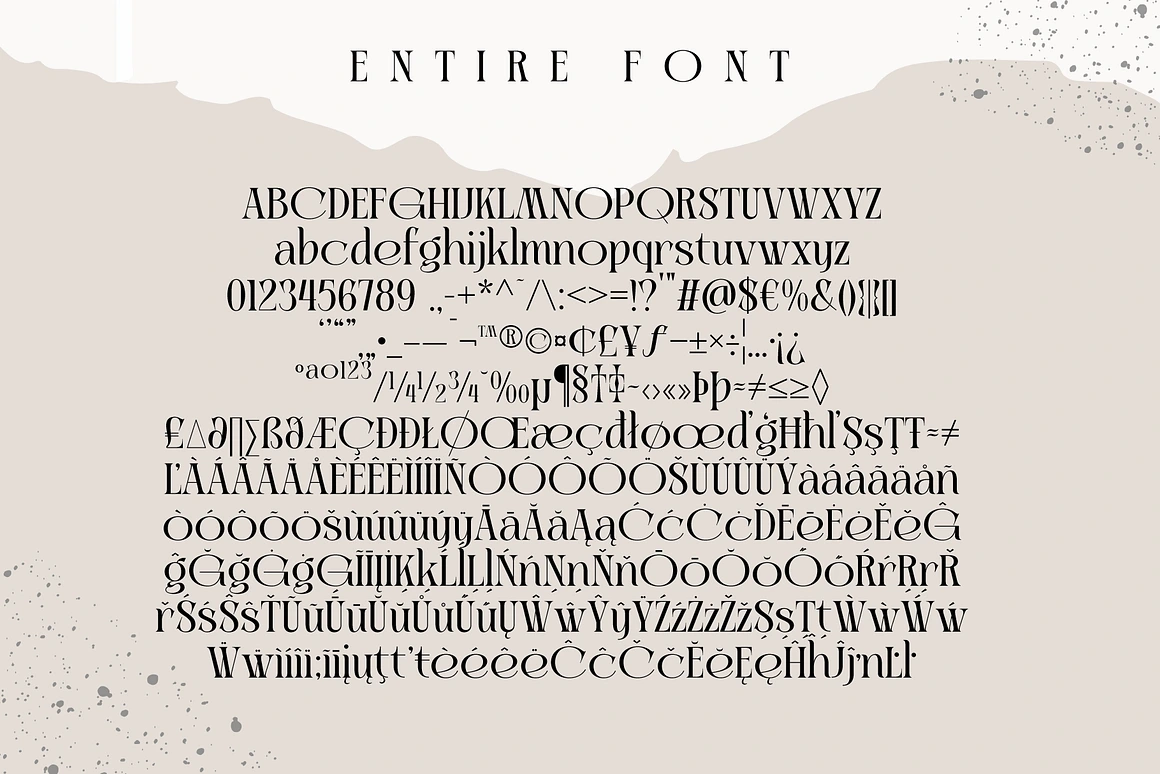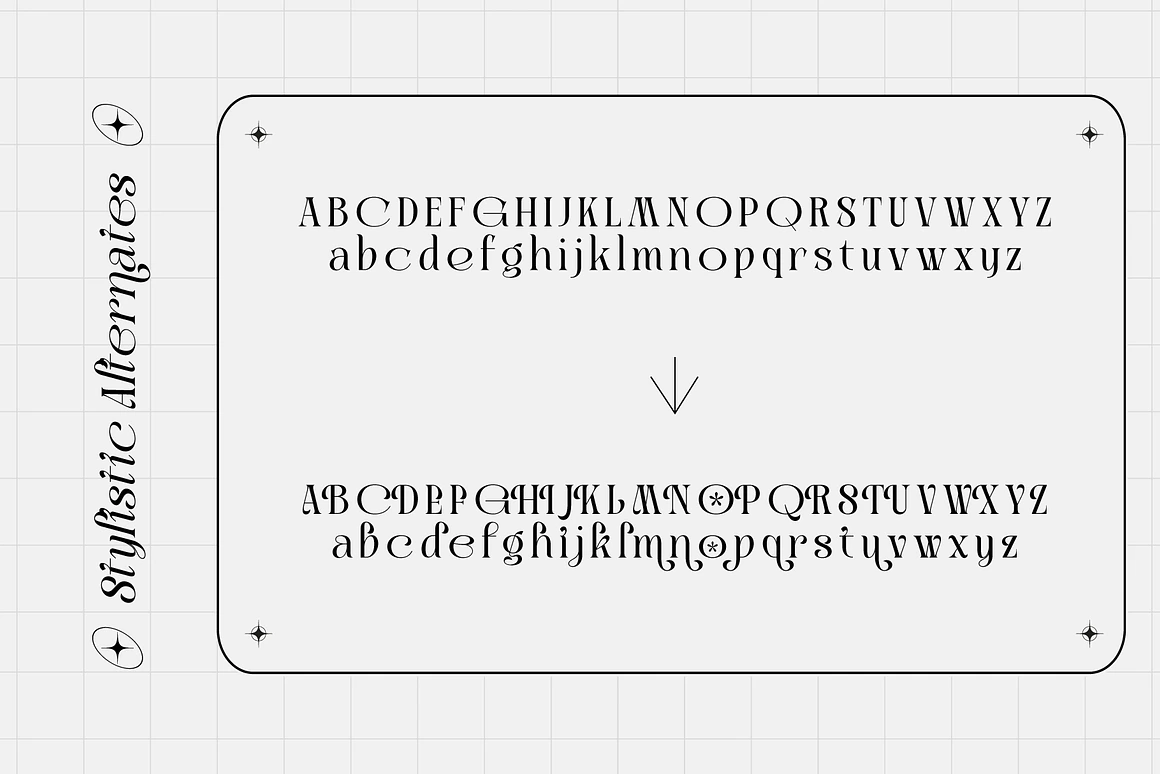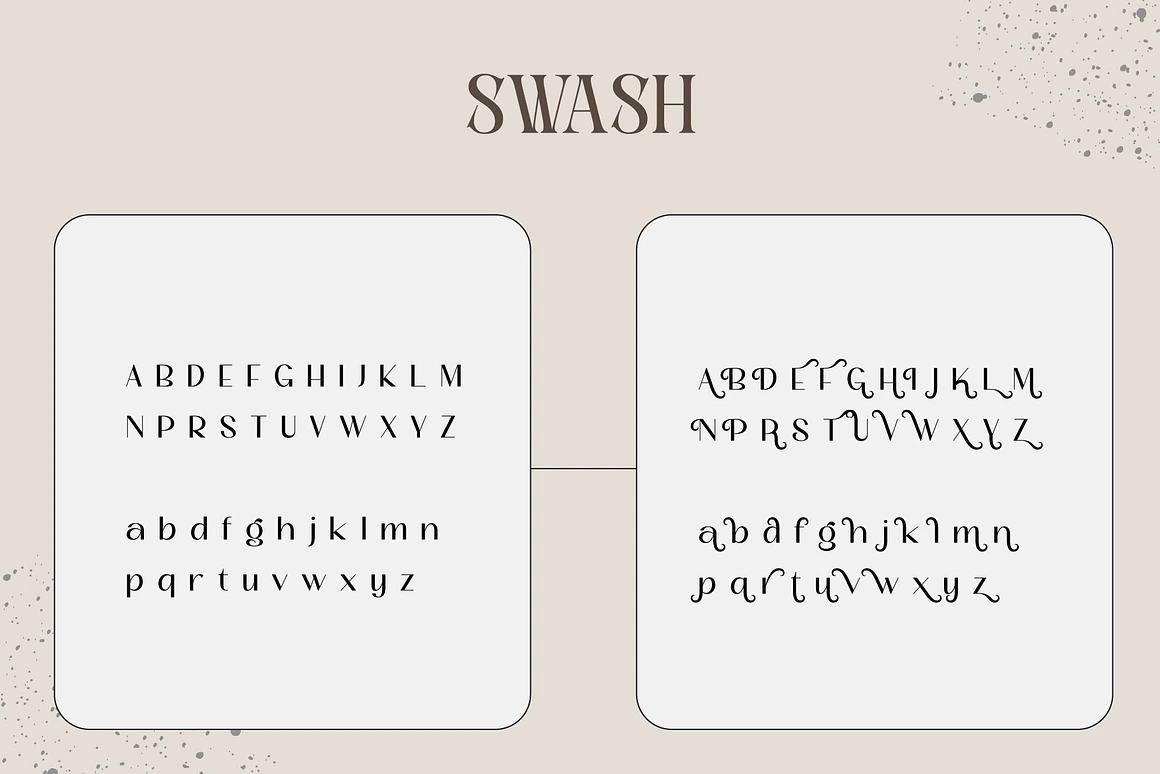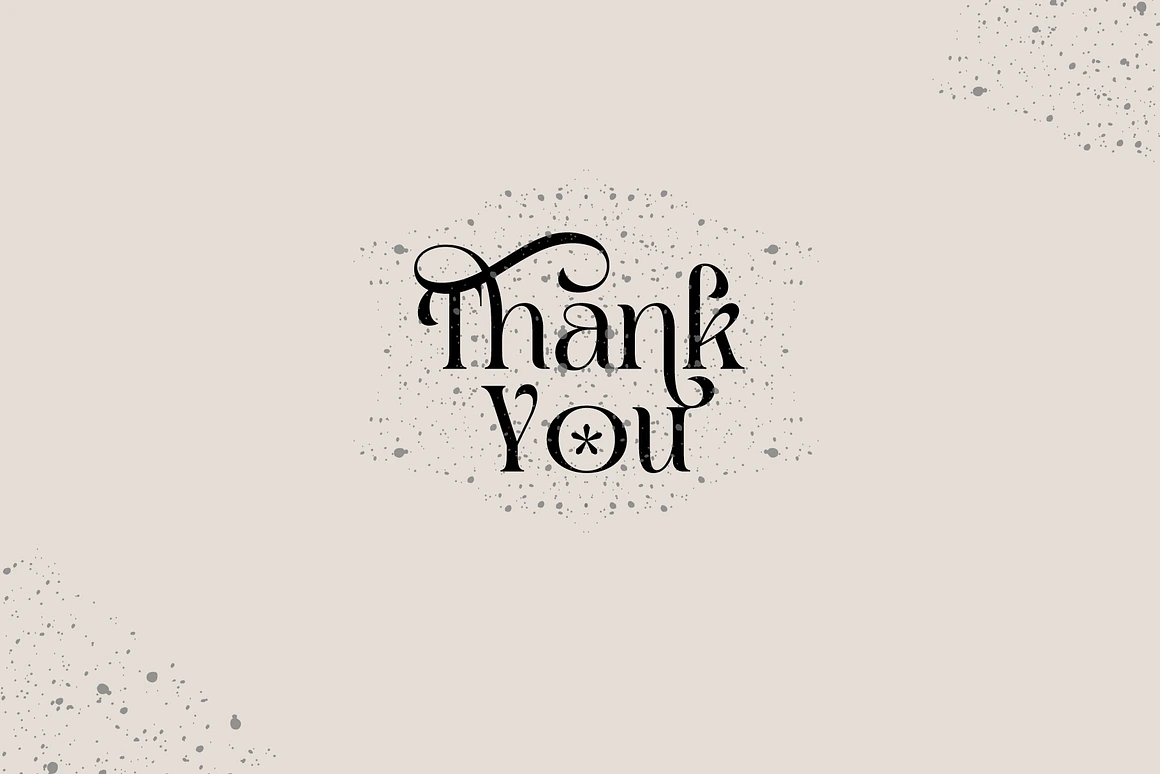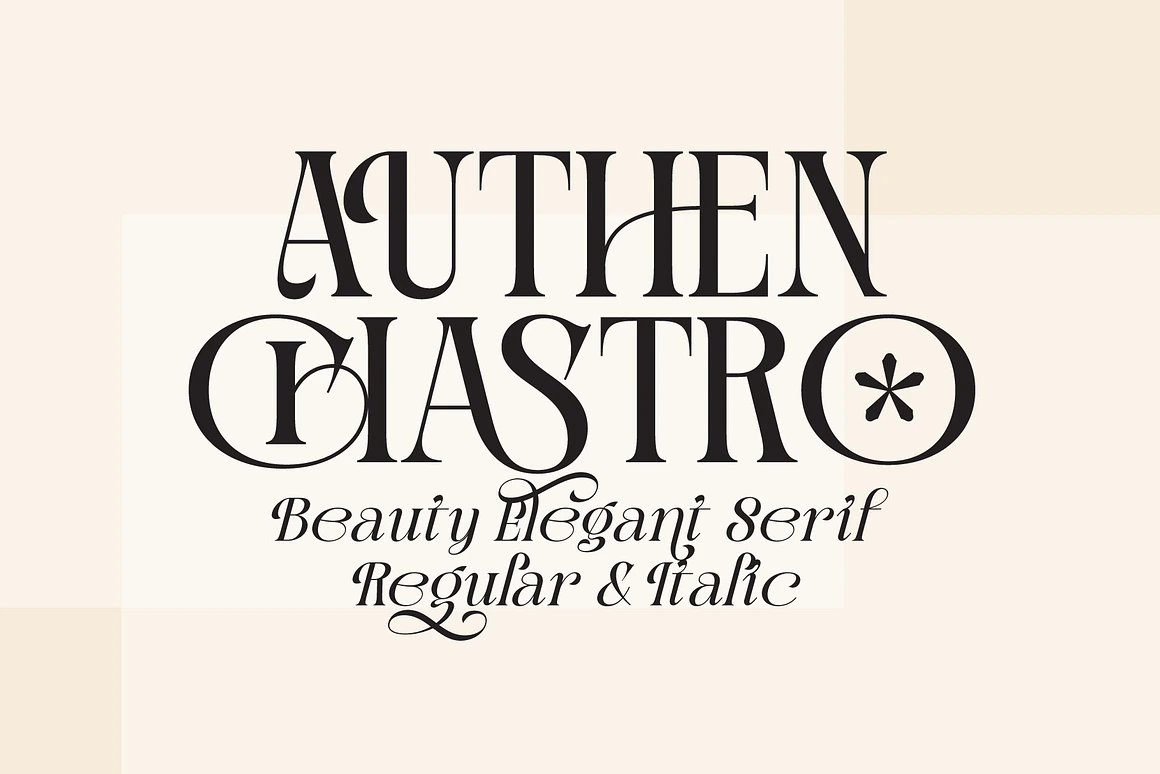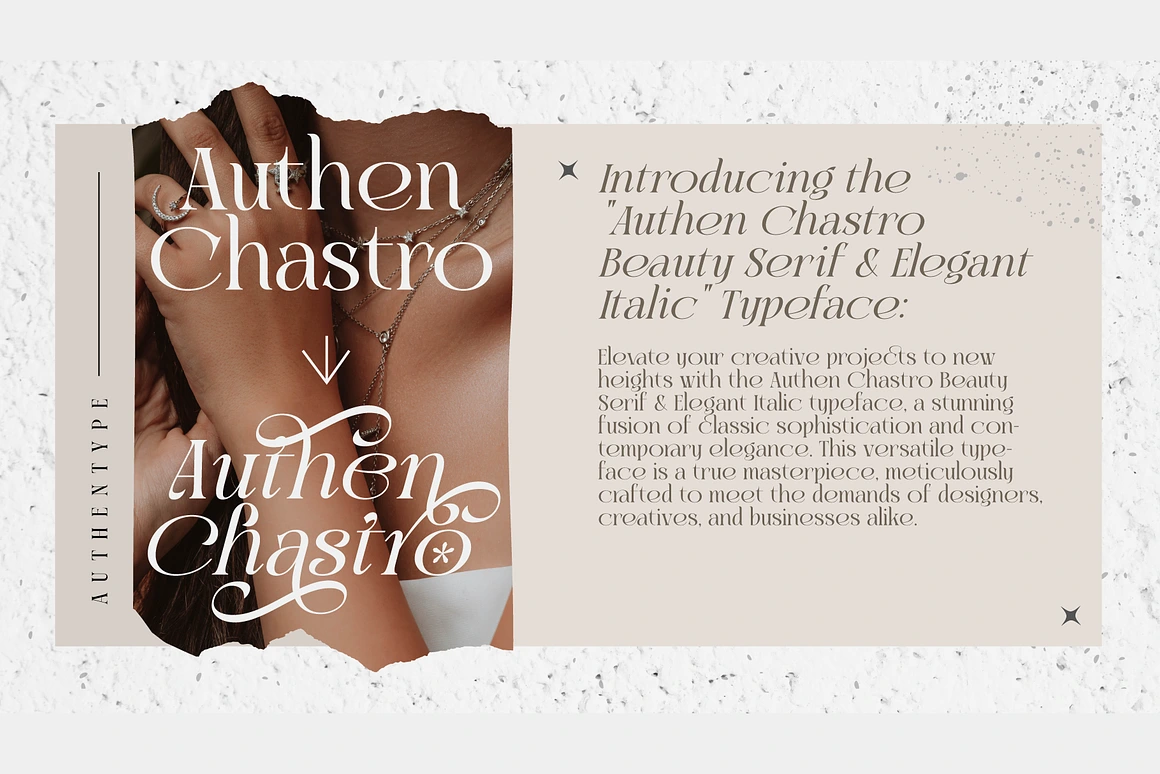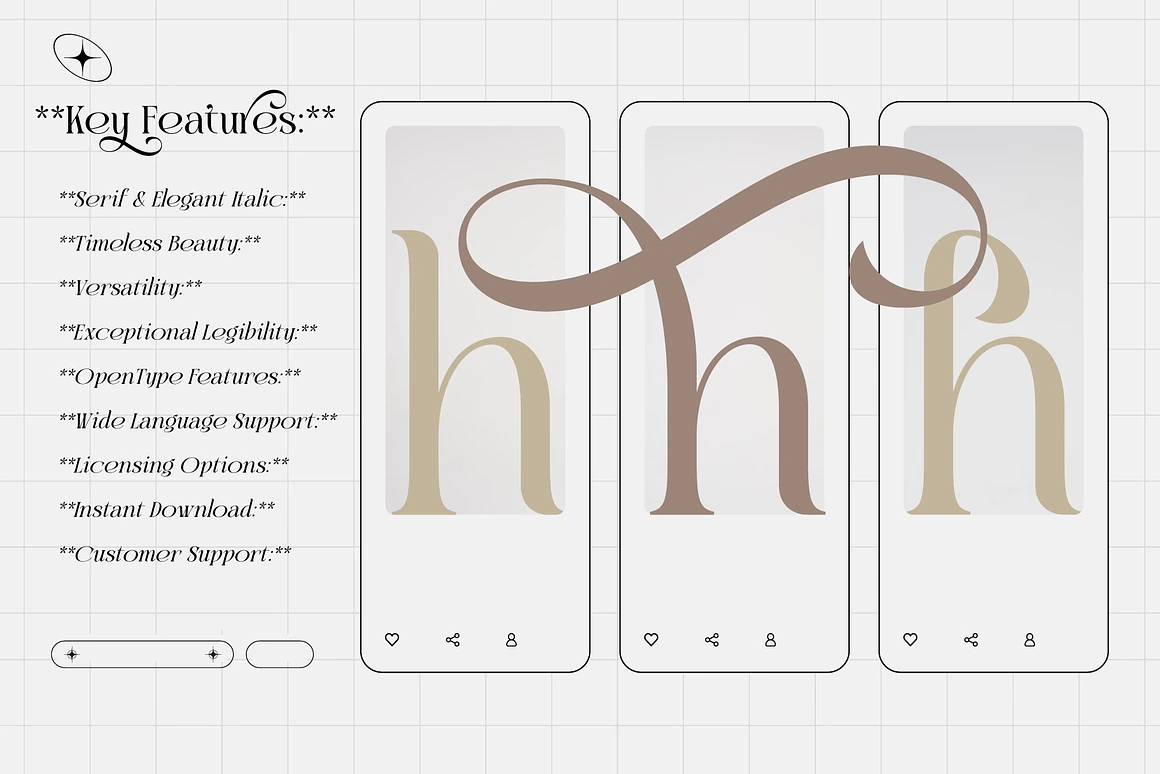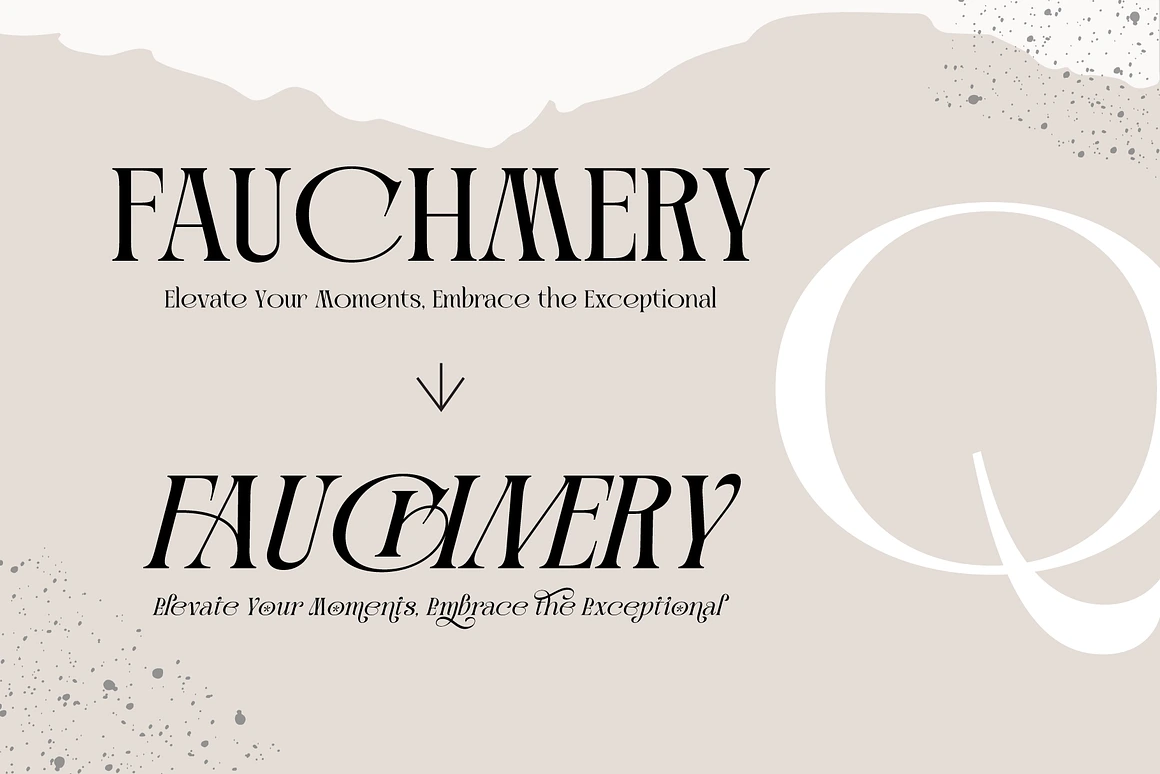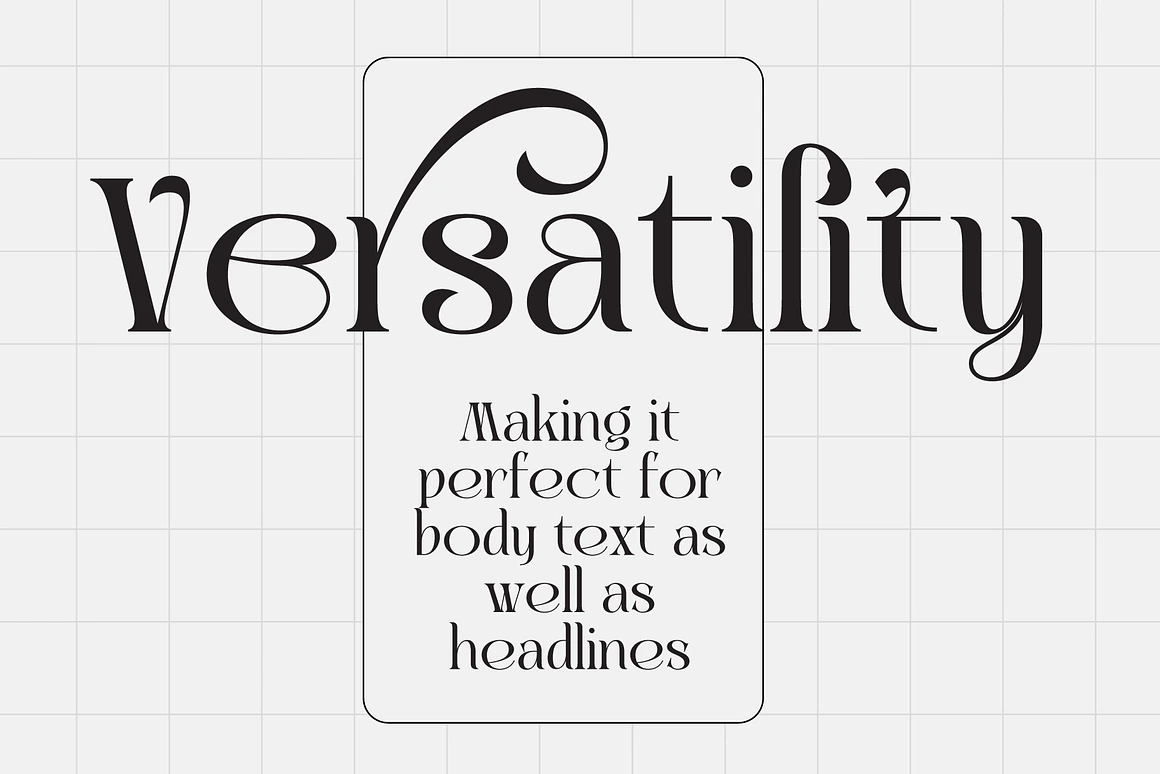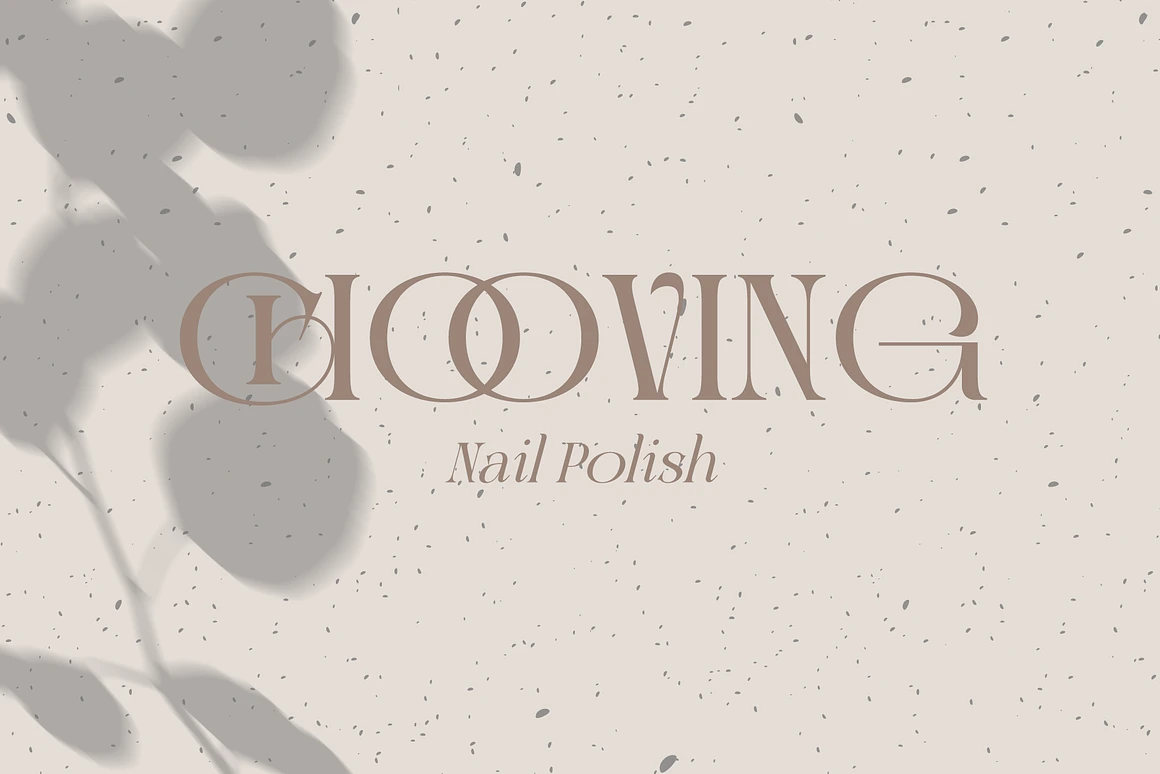
Authen Chastro Serif & Elegan Italic
Authen Chastro Complete Family
Italic
Introducing the Authen Chastro Beauty Serif & Elegant Italic Typeface Font
Elevate your creative projects to new heights with the Authen Chastro Beauty Serif & Elegant Italic typeface font, a stunning fusion of classic sophistication and contemporary elegance. This versatile typeface is a true masterpiece, meticulously crafted to meet the demands of designers, creatives, and businesses alike.
Key Features:
Serif & Elegant Italic: Authen Chastro Beauty strikes the perfect font balance between the timeless charm of serifs and the modern allure of elegant italics. Its graceful, slanted letterforms exude an air of sophistication, making it ideal for a wide range of applications.
Timeless Beauty: Each character in this typeface is designed with meticulous attention to detail, ensuring a harmonious blend of classic aesthetics and modern sensibilities. Authen Chastro Beauty adds a touch of class to any project.
Versatility: Whether you’re working on branding, print materials, web design, invitations, or editorial layouts, this typeface adapts effortlessly to various contexts, thanks to its versatile character set and italicized elegance.
Exceptional Legibility: Authen Chastro Beauty ensures legibility even at smaller sizes, making it perfect for body text as well as headlines. Your content will be both visually engaging and easily readable.
OpenType Features: This typeface includes a range of OpenType features such as ligatures, swashes, and alternate characters, allowing you to infuse a personalized touch into your designs.
Wide Language Support: Authen Chastro Beauty supports multiple languages, making it accessible for global projects and ensuring consistent branding across diverse markets.
Elevate your design projects to a new level of elegance and sophistication with the Authen Chastro Beauty Serif & Elegant Italic typeface. Its timeless beauty and versatility will make your work stand out, leaving a lasting impression on your audience. Experience the perfect blend of classic charm and modern flair today.